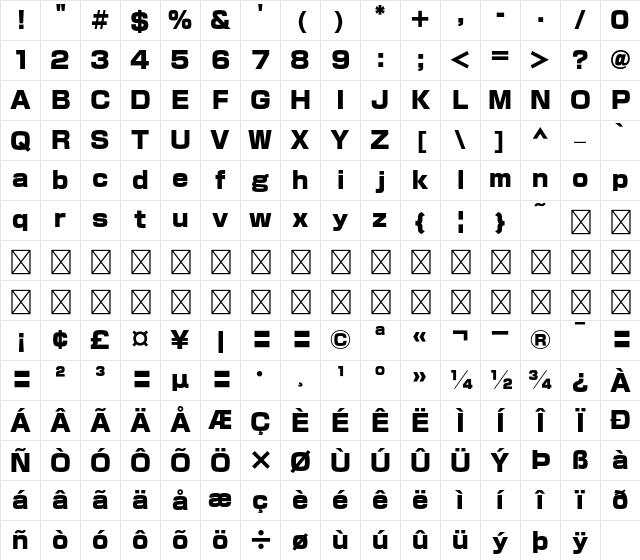
A-OTF BokutohN Std U
Style: U
Designer: Yutaka Satoh
Design Context for A-OTF BokutohN Std
A-OTF BokutohN Std is a composed and adaptable typeface that performs quietly and consistently across a wide range of design contexts.